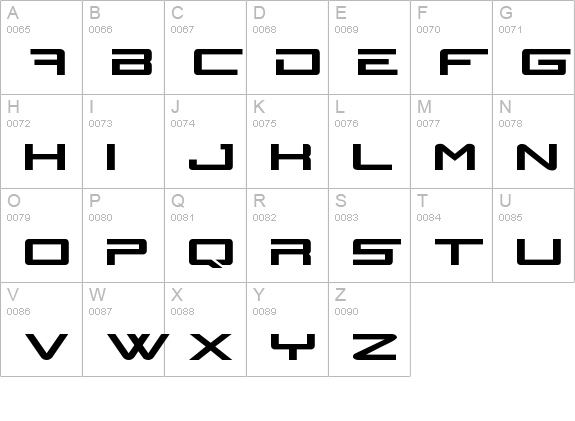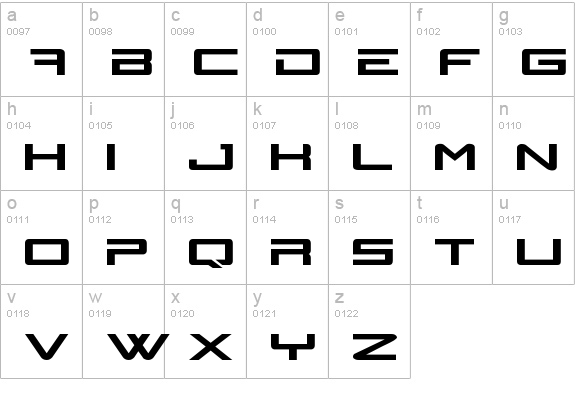
N-Gage Font Details
N-Gage font is a modern and stylish typeface that exudes a sense of sophistication and elegance. With its sleek lines and contemporary design, this font is perfect for a wide range of projects, from branding to editorial design. The N-Gage font is versatile and can be used for both headlines and body text, making it a great choice for any design project. The best part? N-Gage font is available for free download at FontsMarket.com. This means that you can easily access this high-quality font without breaking the bank. Whether you're a professional designer or just starting out, N-Gage font is a valuable addition to your font library. Download it today and elevate your designs with this stunning typeface.